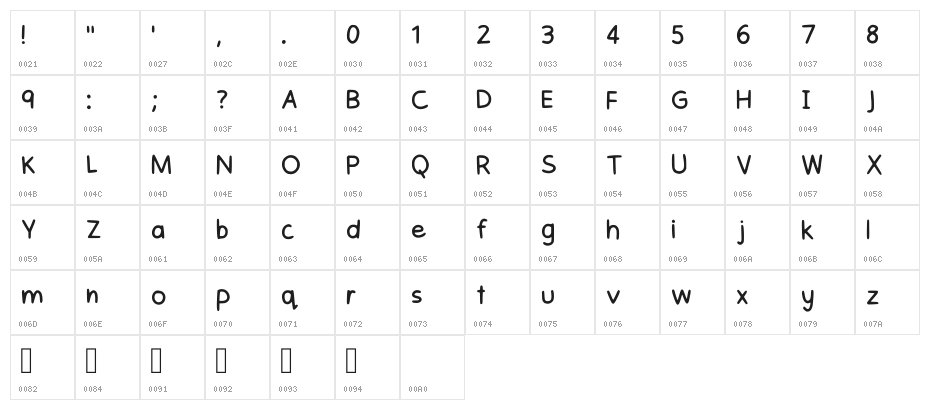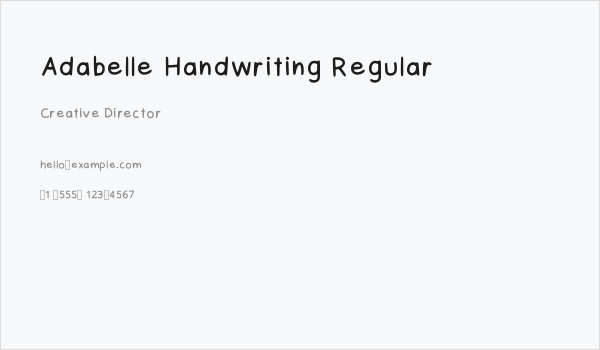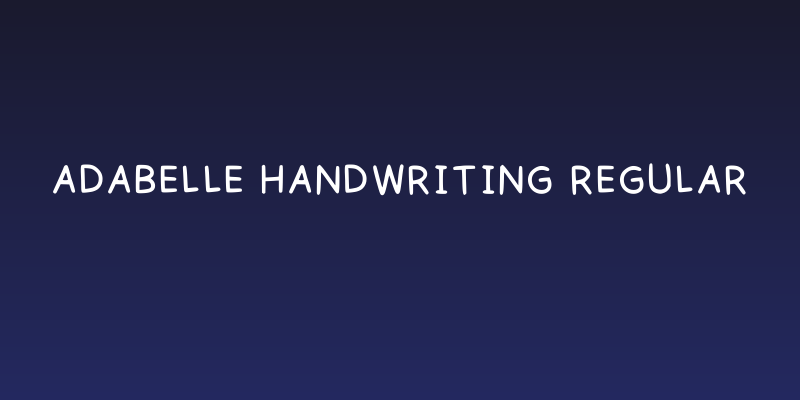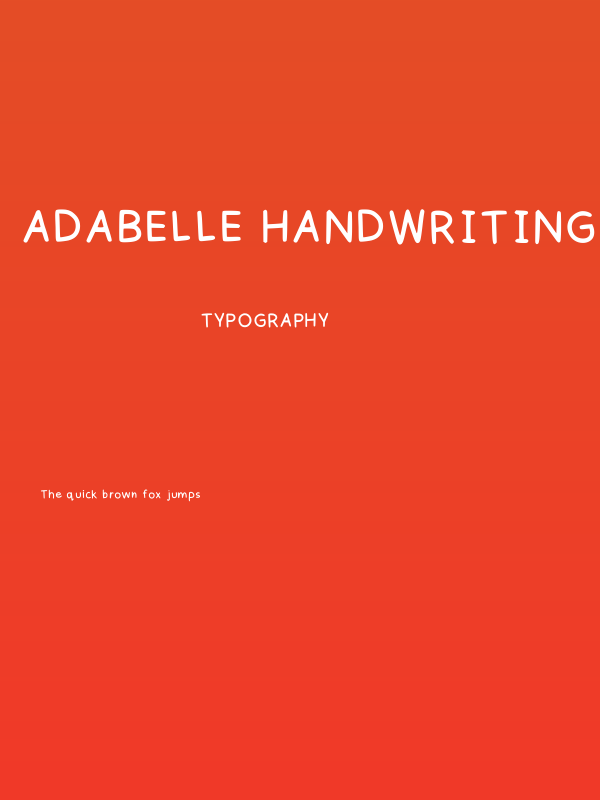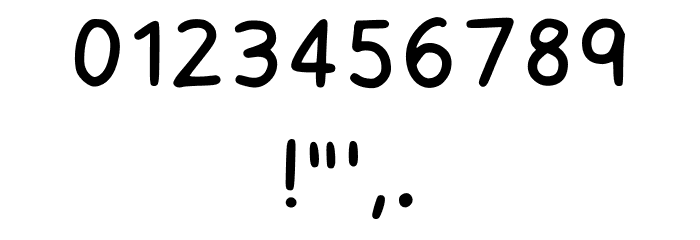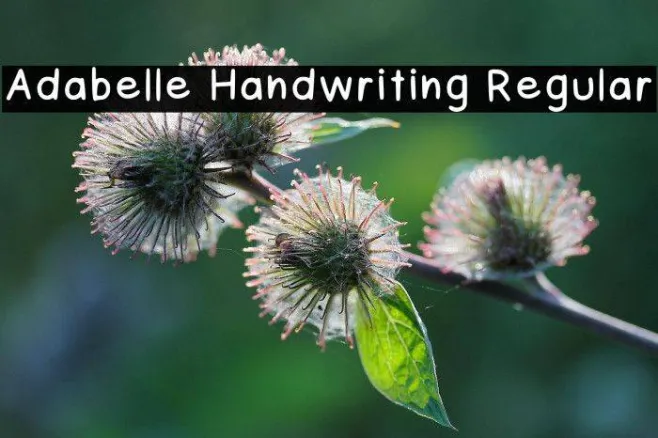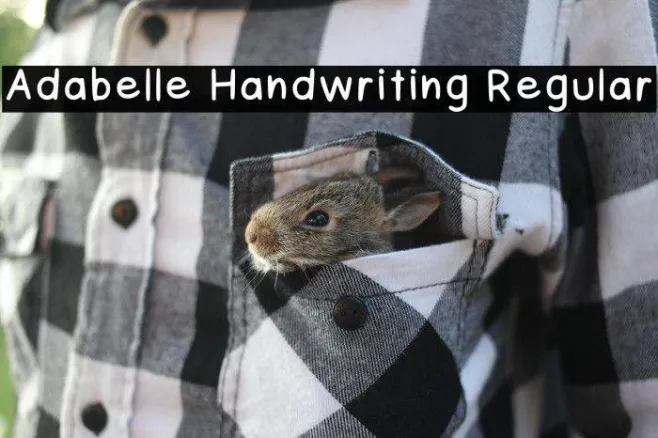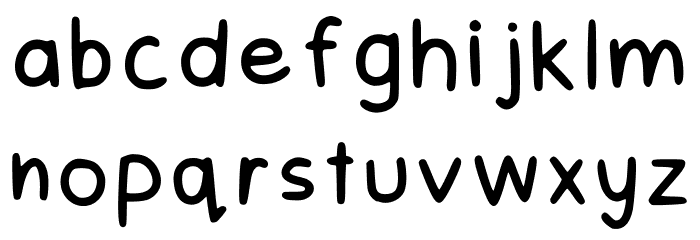
Adabelle Handwriting Regular Font
Adabelle Handwriting Regular Description
This font exudes a playful and casual handwritten style, characterized by its rounded and smooth letterforms. The strokes are consistent in width, giving it a uniform appearance that enhances readability. The letters are slightly tilted, adding a dynamic and informal touch. The font maintains a friendly and approachable vibe, making it suitable for projects that require a personal and warm feel. Its simplicity and clarity make it versatile for various design applications.
| Use Case | Headlines, Informal text, Personal projects |
| Proposed Projects | Ideal for greeting cards, children's books, personal blogs, and informal branding. |